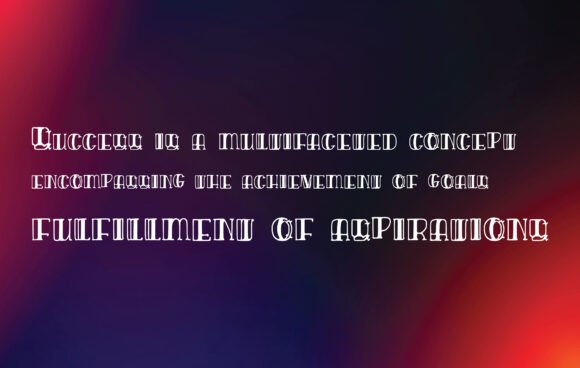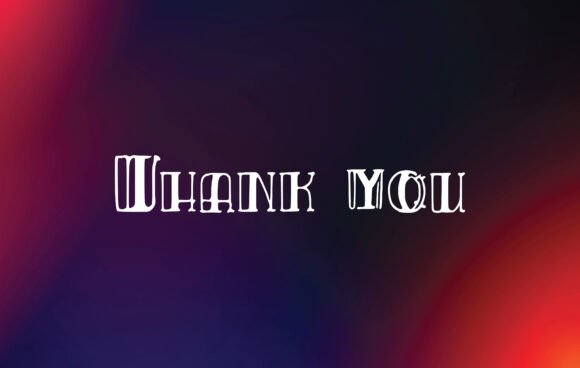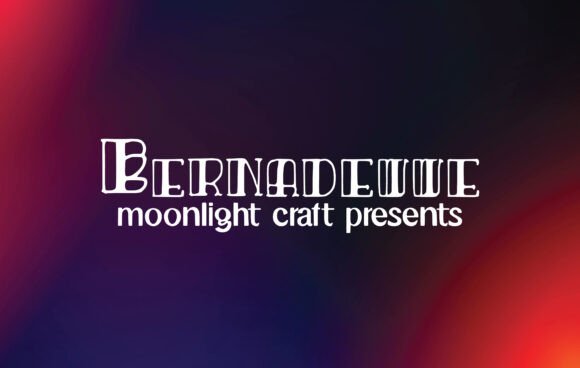
The Designer’s Delight: Bernadette Font
I still remember the frustration of working on a logo design project, only to hit a roadblock when it came to choosing the perfect font. My client wanted something elegant, yet playful; something that would make their brand stand out. After hours of scouring the internet, I stumbled upon the Bernadette font, and it was love at first sight! 💕
Bernadette is a lovely and beautiful font that has the potential to take your creative ideas to the highest level. It’s the best choice for creating eye-catching logos, branding, and quotes. In this article, I’ll share my honest review of the Bernadette font, provide a practical guide on how to use it, and explore similar fonts that you might enjoy.
- 💫 Elegant and sophisticated design
- ✅ Highly versatile for various design projects
- 🎨 Beautiful OpenType features and glyphs
- 👍 Easy to read and works well in large and small sizes
- ⚠️ Limited availability of certain characters
- 🤔 May not work well with very bold or bright color schemes
- Experiment with OpenType features and glyphs to add visual interest
- Explore stylistic alternates and swashes to add creativity to your design
The Designer Behind Bernadette: A Backstory
The Bernadette font was designed by a talented typographer who’s passionate about creating beautiful and functional fonts. With a keen eye for detail and a deep understanding of typography, the designer aimed to create a font that’s both elegant and versatile. The result is a font that’s perfect for a wide range of design projects, from logos and branding to quotes and editorial designs.
| Is Bernadette suitable for body text? | While Bernadette is beautiful, it’s recommended for headlines, titles, and short paragraphs. For longer body text, a clearer font might be more suitable. |